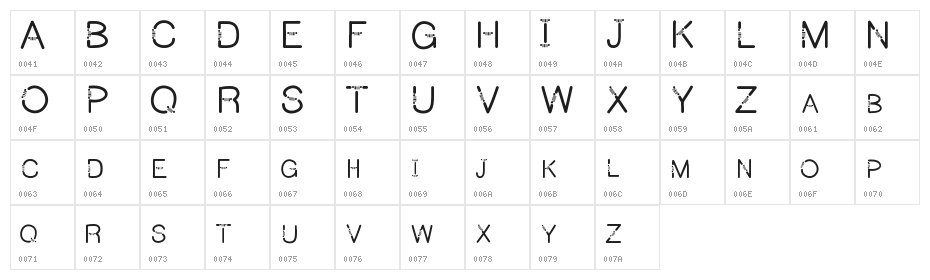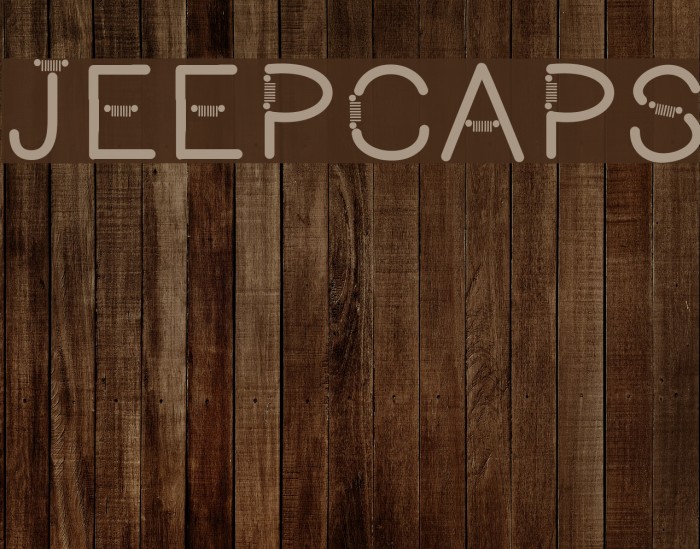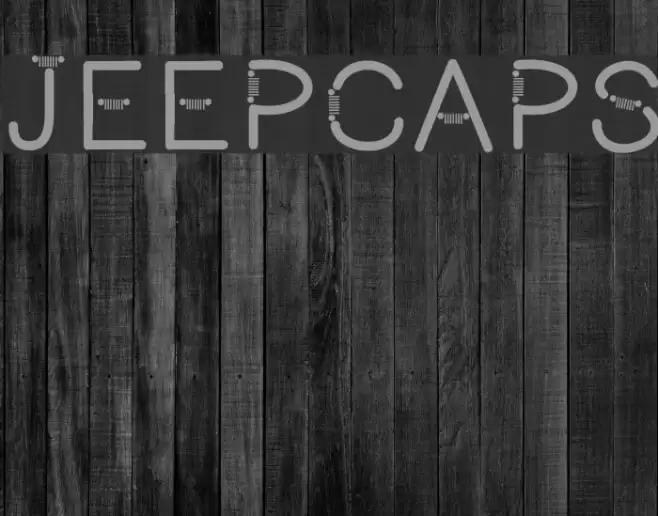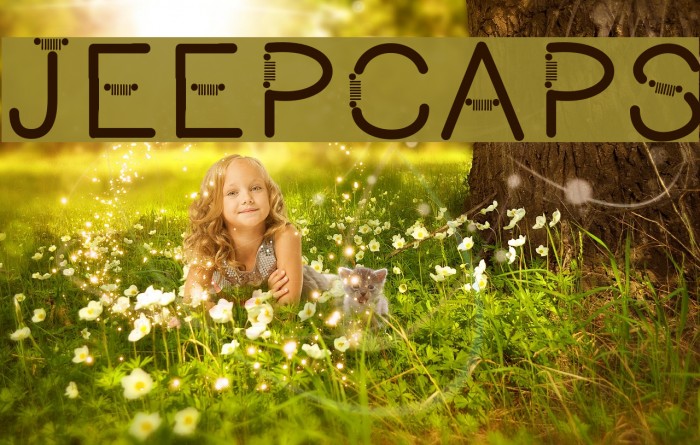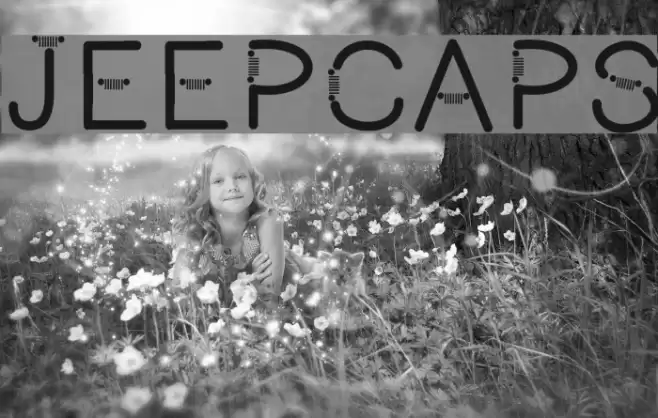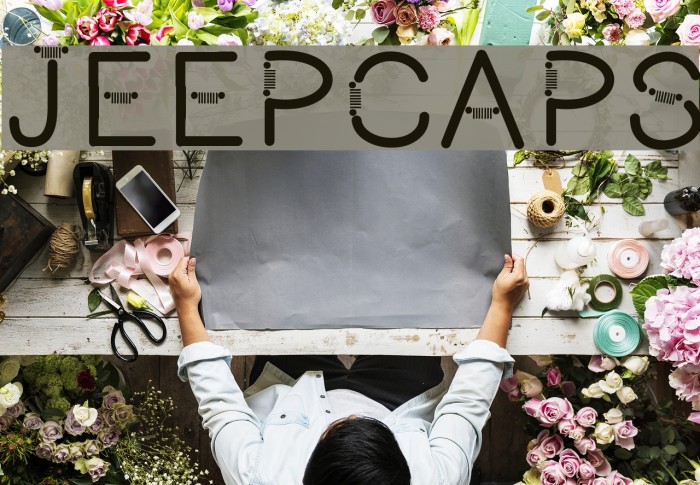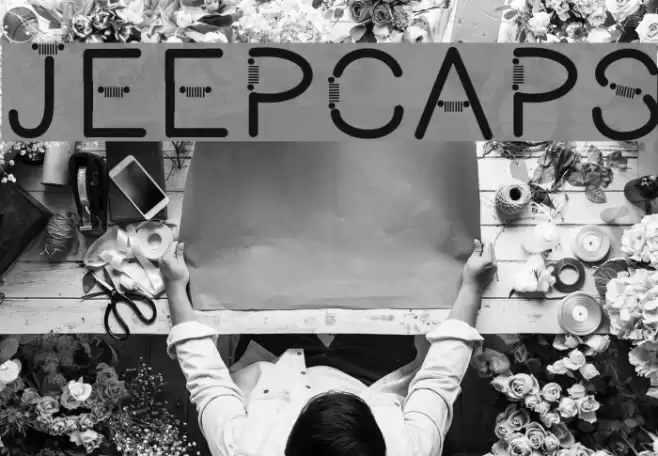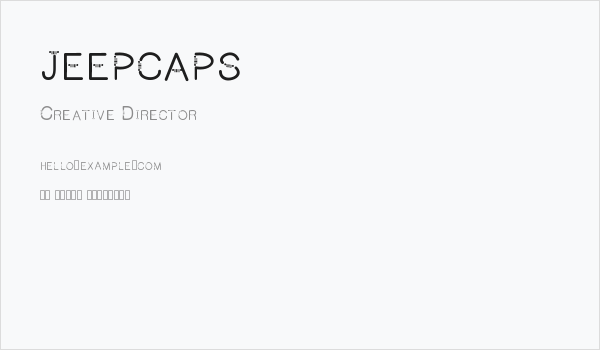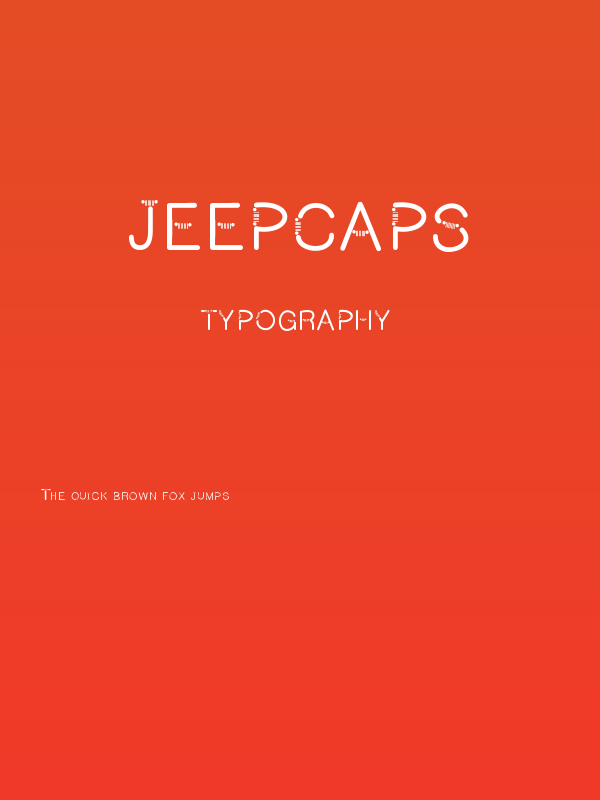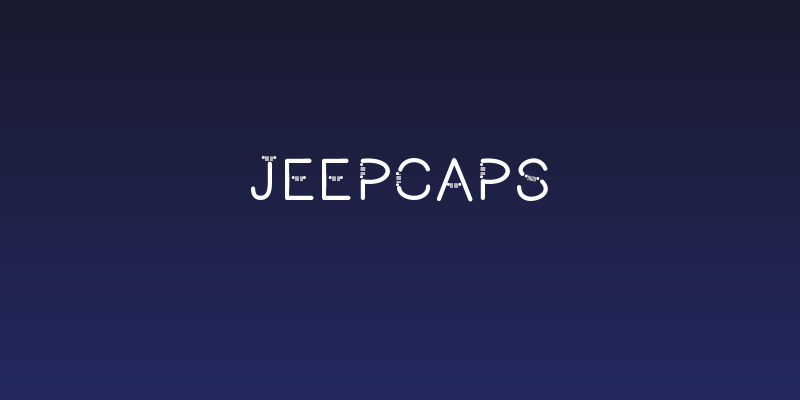
JEEPCAPS Font
JEEPCAPS Description
This font features a unique design with a modern and industrial feel. Each character is constructed with a combination of solid lines and dotted patterns, giving it a distinctive, almost mechanical appearance. The uppercase letters are bold and prominent, while the lowercase letters maintain the same stylistic elements, ensuring consistency across the font. The numbers and special characters follow the same design principles, making them easily recognizable and cohesive with the rest of the set. This font's geometric and structured style makes it ideal for projects that require a contemporary and edgy look.